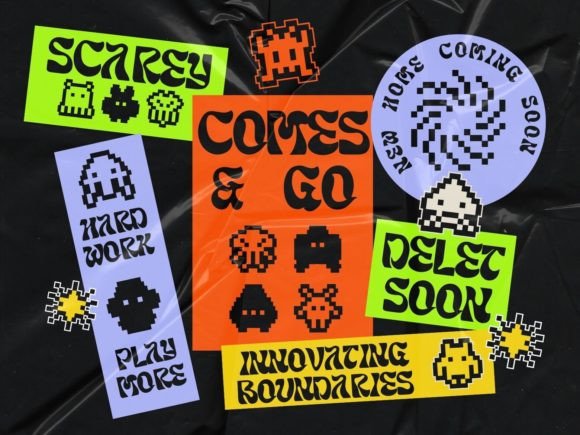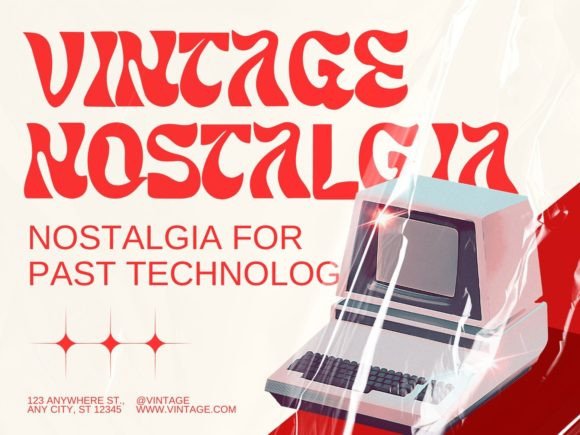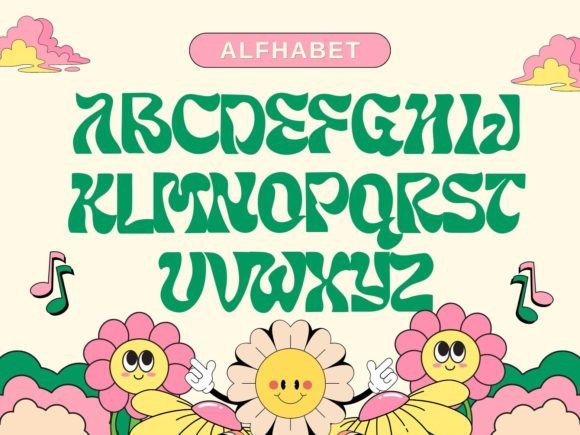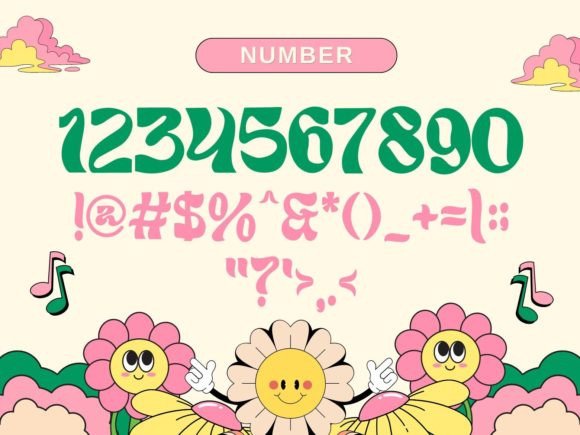
Meet the Font that Brings a Smile to Your Designs
As a designer, there’s nothing quite like that moment when a font just clicks – when the right combination of style and personality elevates your project from good to great. It’s a feeling that’s hard to describe, but it’s like the whole design just comes alive. For me, that moment came when I stumbled upon the Faying Font. With its rounded letterforms and welcoming demeanor, this font exudes approachability and warmth, making it the perfect addition to any project that needs a friendly and modern touch.
The Faying Font is more than just a pretty face – it’s a valuable tool for designers looking to add a playful touch to their designs. Its delightful and charming quality makes it ideal for projects ranging from branding and marketing materials to social media graphics and digital signage. Whether you’re a seasoned pro or just starting out, the Faying Font is sure to bring a smile to your designs and delight your audience.
Faying Font Key Features
- Unique Character Set: Faying Font boasts a unique character set, including over 2,000 glyphs, including Latin, Cyrillic, and Greek alphabets, as well as a range of punctuation and symbol marks.
- Advanced Typographic Features: Faying Font supports advanced typographic features, such as ligatures, swashes, and contextual alternates, allowing designers to create complex and sophisticated typography.
- High-Quality Design: Faying Font is designed with high-quality vectors, ensuring crisp and clear typography, even at small sizes and high resolutions.
Faying Font Review
As a designer, I was excited to dive into the Faying Font and see what it had to offer. Overall, I found it to be a solid addition to any designer’s toolkit. ✨ Here are some of the things that stood out to me:
- Unique character set: Faying Font has a distinct style that sets it apart from more generic fonts.
- Highly legible: The font is easy to read, even at smaller sizes, making it perfect for body text.
- Great for creative projects: Faying Font’s quirky style makes it ideal for use in creative projects, such as posters, flyers, and brochures.
However, I did encounter a few limitations ⚠️:
- Limited font sizes: While the font is highly legible, it can start to look a bit too playful at larger font sizes.
- No support for bold or italic styles: This can limit the font’s use in certain applications, such as titles or headings.
Overall, I was impressed with the Faying Font. While it may not be perfect for every project, its unique style and high legibility make it a great addition to any designer’s toolkit. With a few tweaks to address its limitations, I have no doubt that this font will become a go-to choice for many designers.
Tips for Getting the Most Out of Faying Font
Use Faying Font in combination with bold or italic text for emphasis. Experiment with different font sizes and colors to create visual interest. Faying Font is particularly effective for creating titles and headings.
Faying Font is ideal for use in titles, headings, and body text where a modern and sleek aesthetic is desired. It is particularly effective in digital design, such as websites, social media, and presentations.